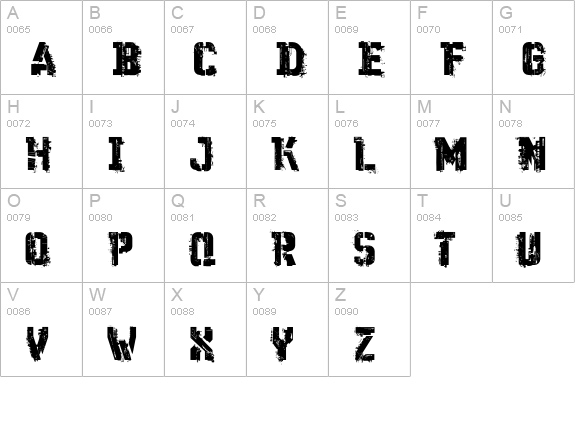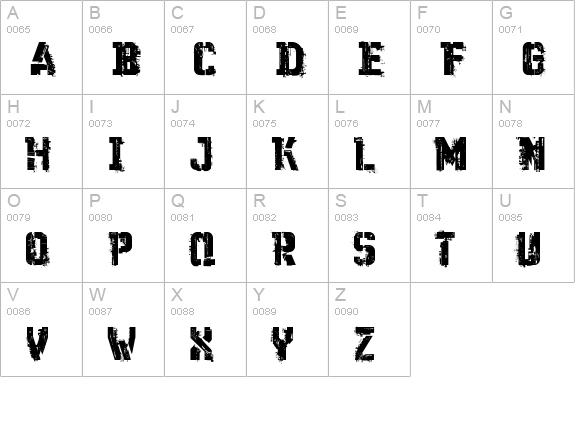
WC Wunderbach Mix Bta DemiBold Font Details
WC Wunderbach Mix Bta DemiBold is a sub-bold, structured variant in the WC typeface family \xE2\x80\x94 well suited to sub-headlines and emphasised passages.
The WC Wunderbach Mix Bta DemiBold font is a versatile and stylish typeface that combines elements of modernity with a touch of vintage charm. Its bold and eye-catching design makes it perfect for a wide range of design projects, from logos to posters to packaging. This font is ideal for creating impactful headlines and titles that stand out from the crowd. With its unique blend of classic and contemporary styles, WC Wunderbach Mix Bta DemiBold is sure to make a statement in any design. Best of all, this font is available for free download at FontsMarket.com. Whether you're a professional designer looking to add a new font to your collection or a hobbyist looking to spice up your next project, WC Wunderbach Mix Bta DemiBold is the perfect choice. Download it today and unleash your creativity!